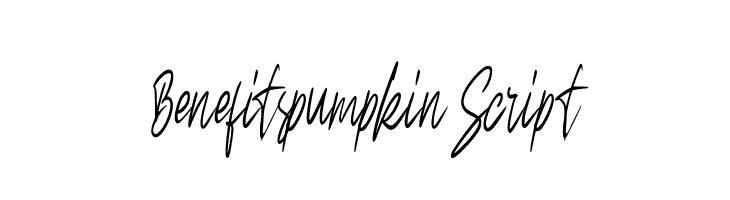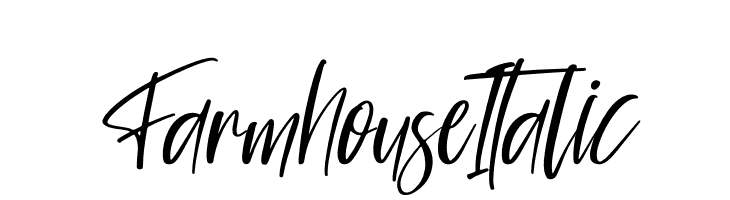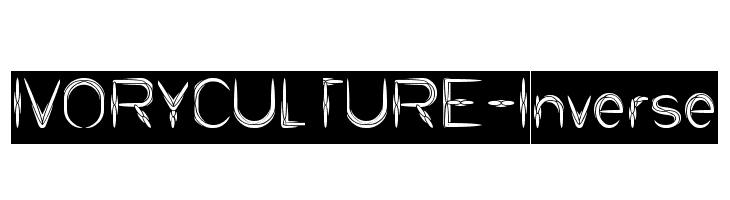
A dynamic, handwritten italic font with elongated strokes and a playful elegance.
An elegant and fluid script font with graceful strokes and a dynamic appearance.
A whimsical, handwritten font with a playful and casual style.
A bold, condensed font with a futuristic and sporty aesthetic.
A futuristic, geometric font with sharp, angular letterforms.
A dynamic and fluid script font with elegant, flowing letterforms.
A dynamic, brush-style font with fluid, hand-painted strokes.
A fluid, elegant handwritten script with smooth, flowing lines.
A delicate, elegant handwritten font with thin, flowing strokes.
A bold, fragmented font with a futuristic, cyborg-like design.